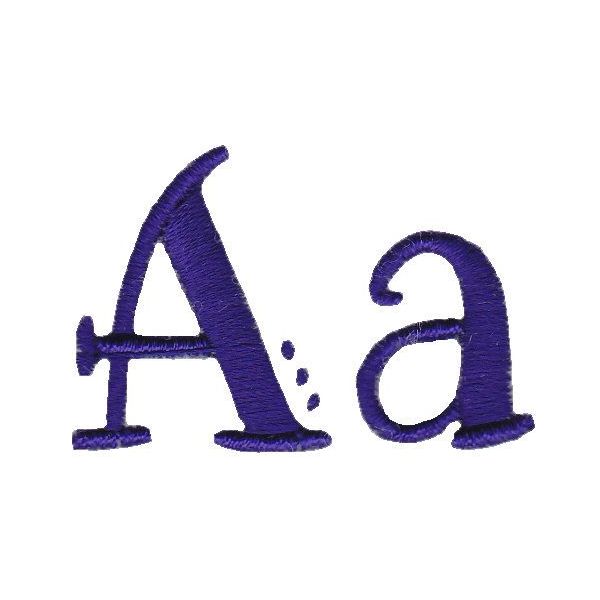
Unicorn Wishes Font
Unicorn Wishes Font A
Unicorn Wishes Font
design set. Unicorn Wishes Font is a fun embroidery font. This font includes 5 great sizes - 1 Inch, 1.25 Inches, 1.5 Inches, 1.75 Inches and 2 Inches. The font includes Capitals, Lower Case and Numbers as displayed. BX files are also included for use with the Embrilliance software when purchasing the full alphabet set. Just choose your machine format, and the BX files will be included with your machine format files.
Single design from Unicorn Wishes Font design set